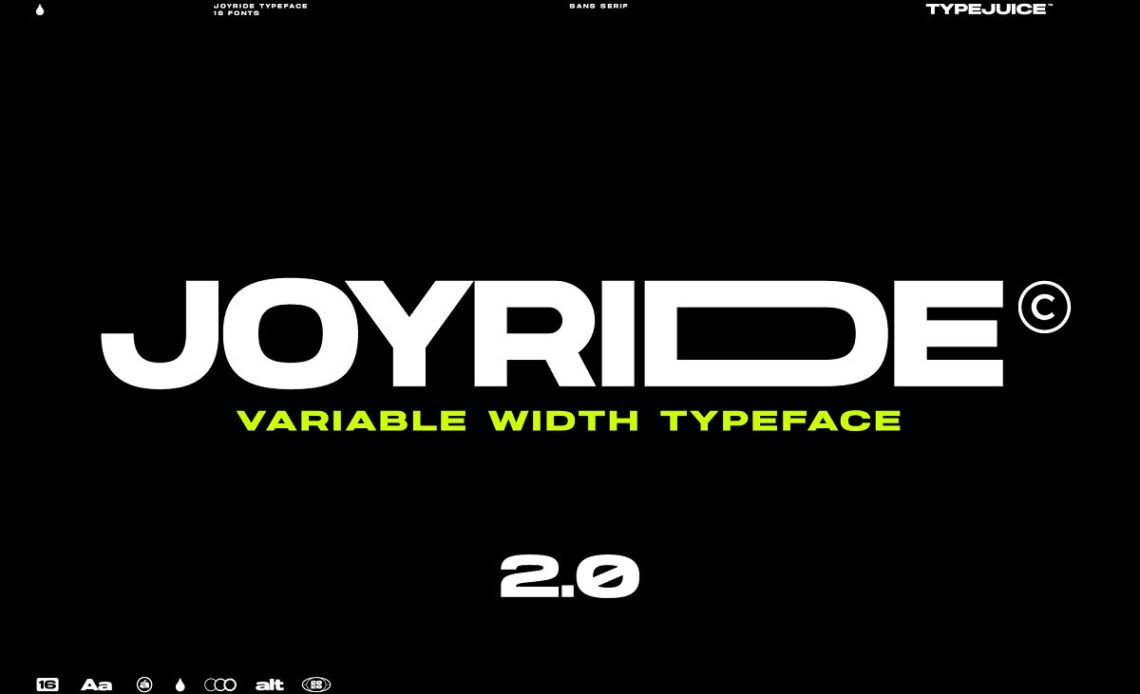
Discover the perfect font for your project with Joyride Extended Typeface! Created by TypeJuice, this versatile and modern sans serif font family is sure to elevate your design game.
With 16 fonts in the collection, Joyride offers a wide range of weights and styles to fit any project. Whether you're looking for something bold and impactful, or more subtle and refined, Joyride has a font that will work for you.
What sets Joyride apart from other fonts is its impressive variety of alternate glyphs. With over 300 different options, you can customize your text to your heart's content, giving you endless creative control over your design.
But that's not all - Joyride is also multilingual, so you can use it for projects in any language. And with over 4000 glyphs in total, you'll have all the characters you need to create stunning designs with ease.
Don't settle for boring fonts that blend in with the crowd. Choose Joyride Extended Typeface and stand out from the pack with a font that's as unique and creative as you are!